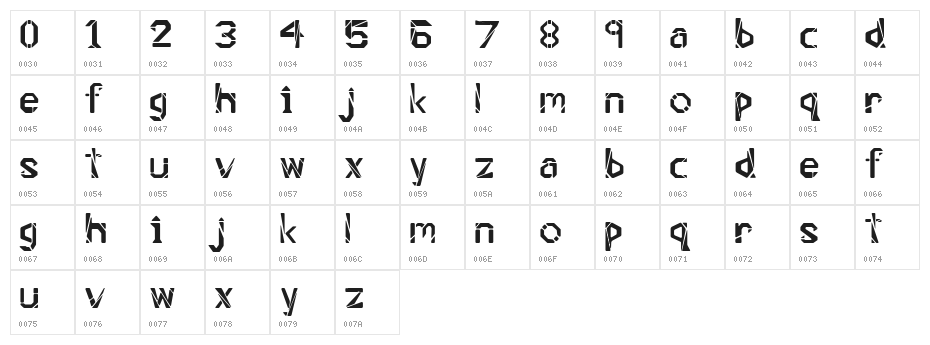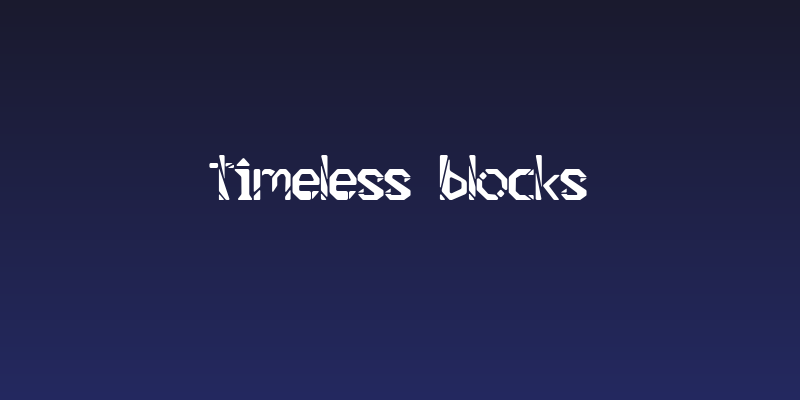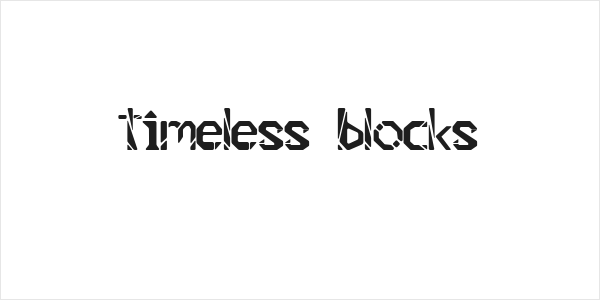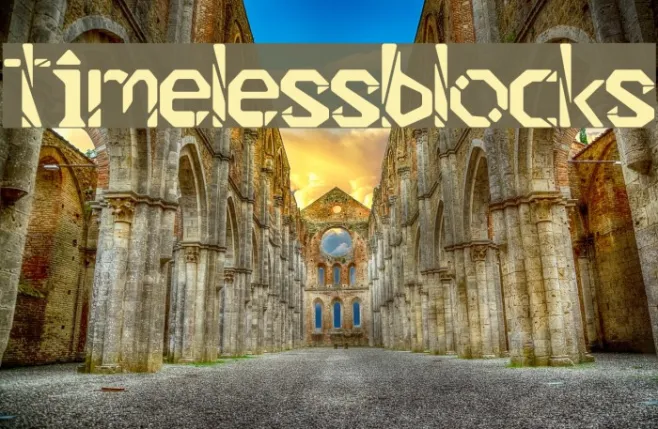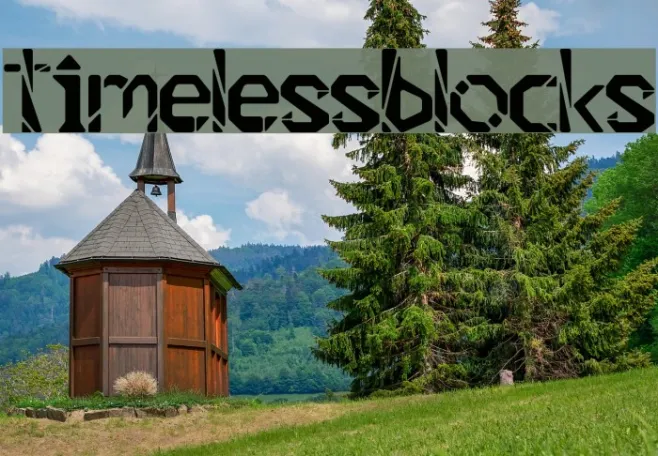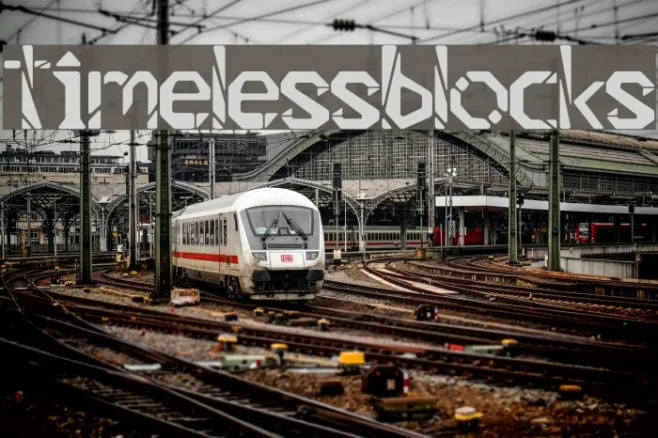
Timeless Blocks Font
Timeless Blocks Description
This font features a bold and geometric design with a futuristic and blocky aesthetic. Each character is constructed with sharp angles and distinct cutouts, creating a sense of movement and modernity. The uppercase and lowercase letters maintain a consistent style, with the numbers following suit, ensuring uniformity across all characters. The unique structure of the font makes it stand out, with each letter appearing as a carefully crafted piece of art. The font's design is both eye-catching and functional, making it suitable for a variety of creative applications.
| Proposed Projects | Ideal for sci-fi themed projects, video game titles, tech branding, and modern posters. |